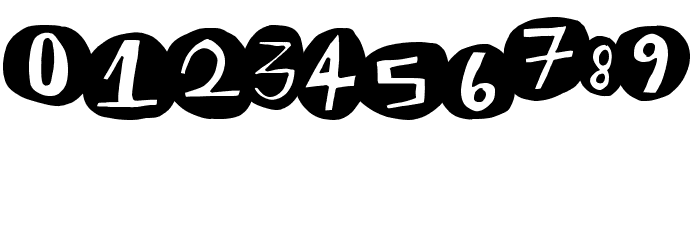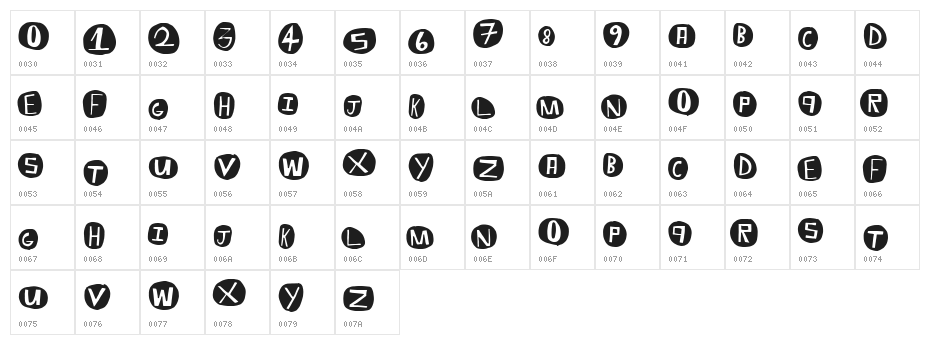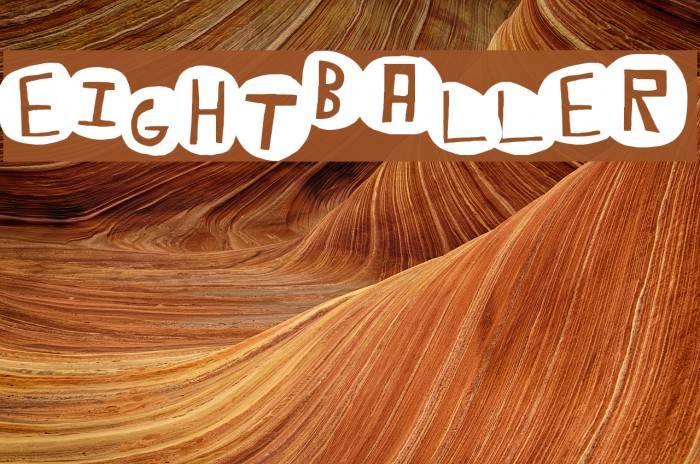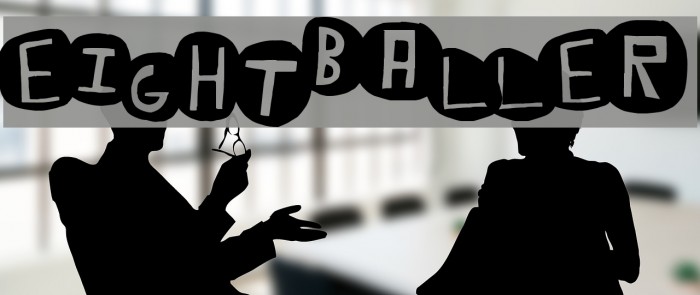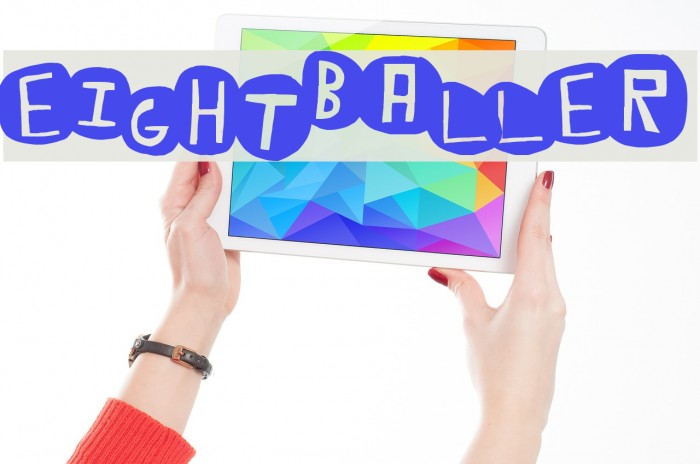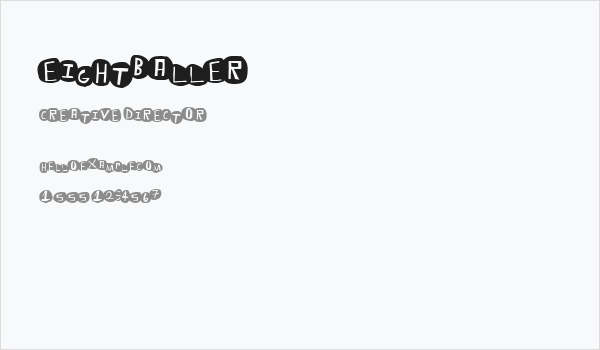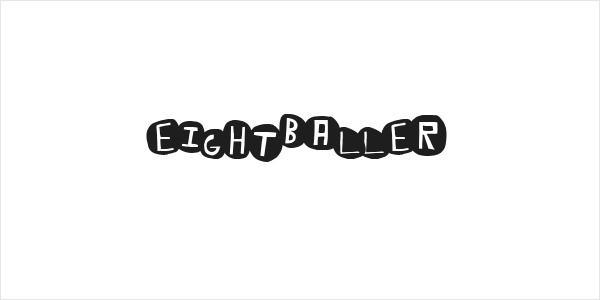
EightBaller Font
EightBaller Description
This playful and bold font features letters encased in circular, black backgrounds, creating a striking contrast with the white, hand-drawn style of the characters. The uppercase and lowercase letters maintain a consistent, rounded shape, giving the font a cohesive and whimsical appearance. The numbers and special characters follow the same design, ensuring uniformity across all elements. The font's unique style makes it ideal for projects that require a fun and eye-catching aesthetic.